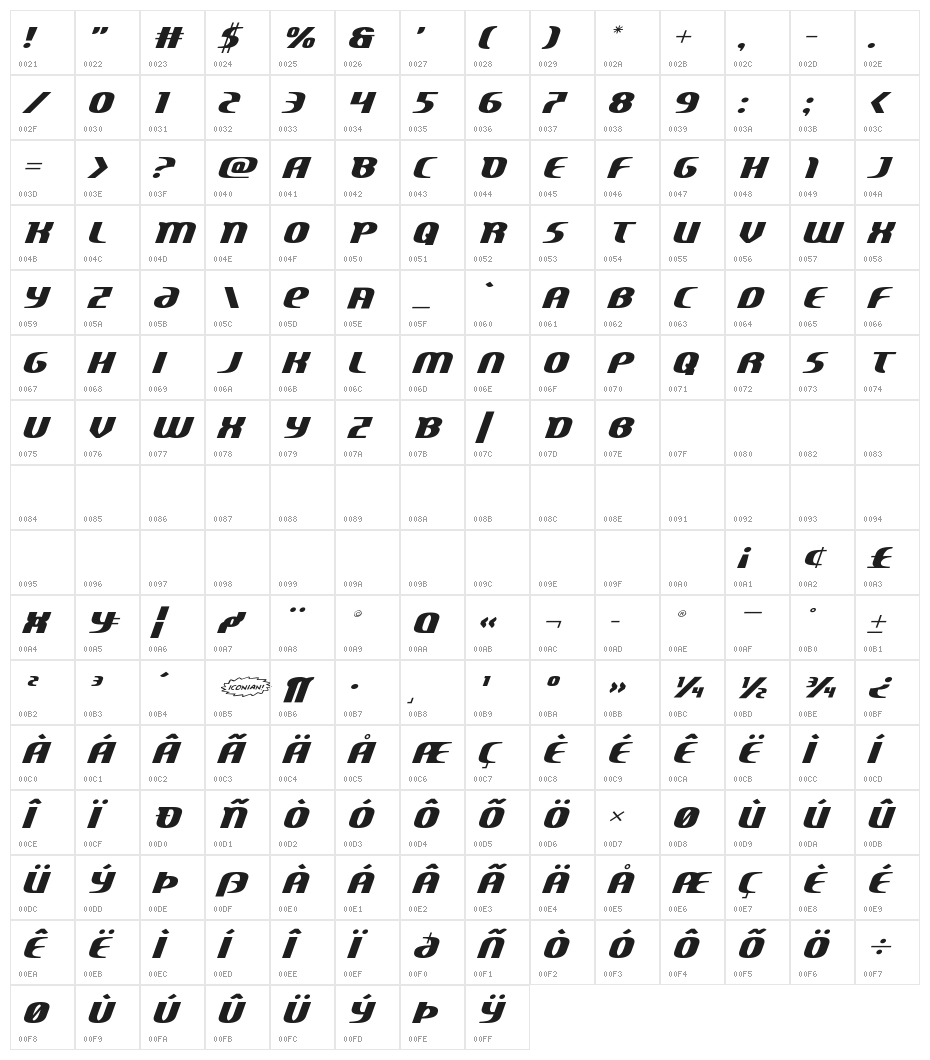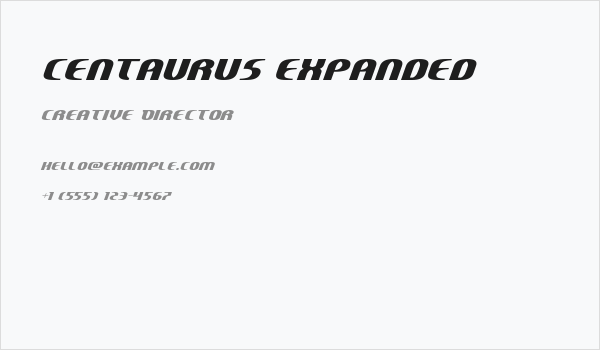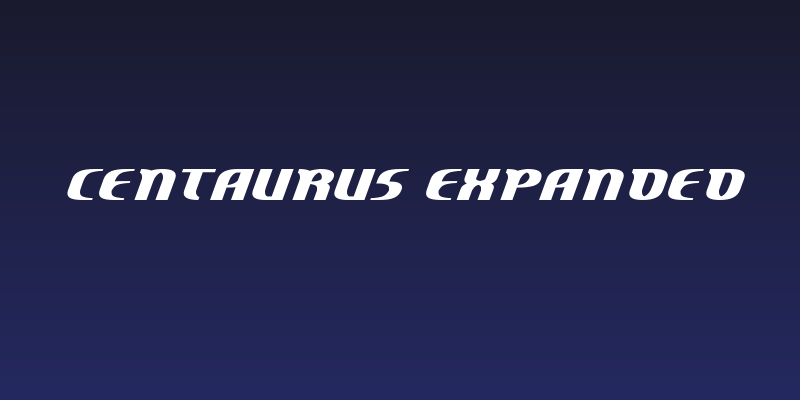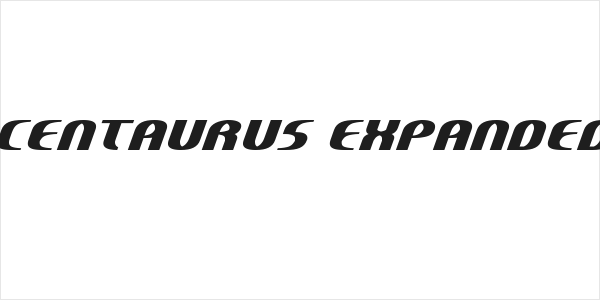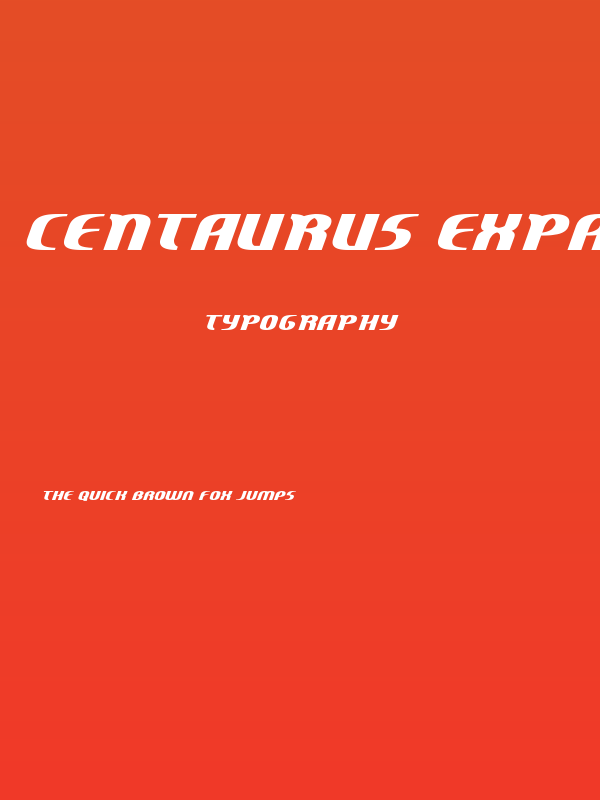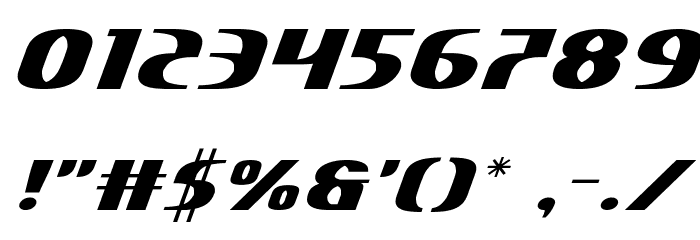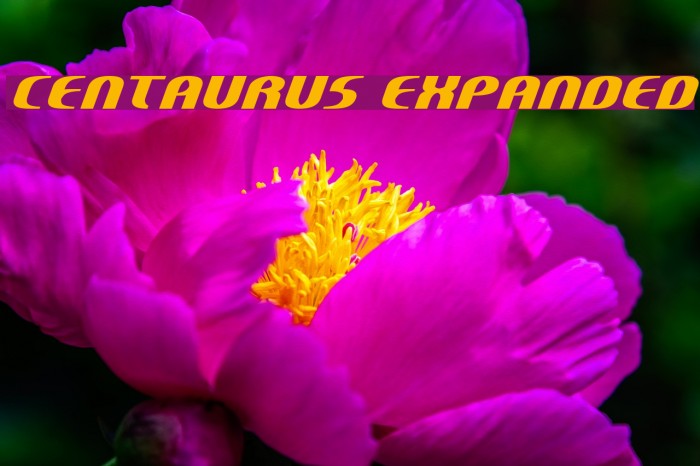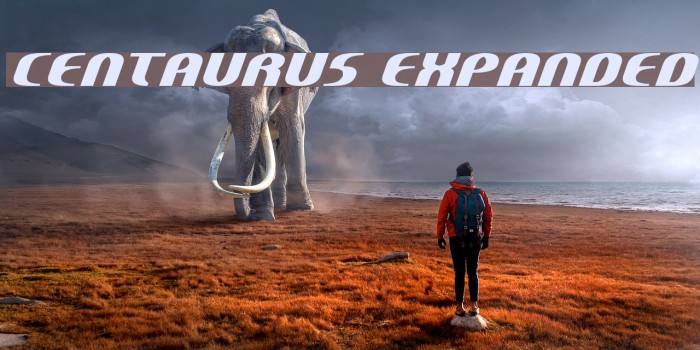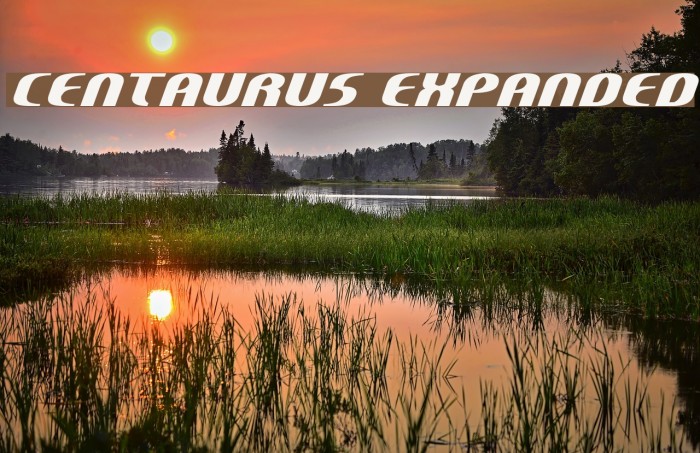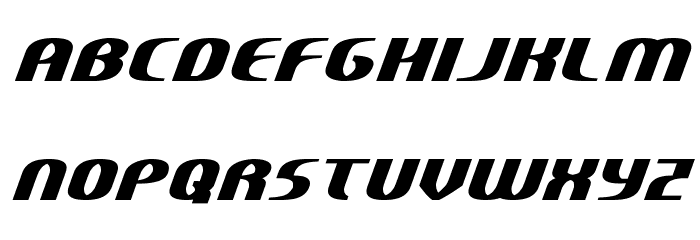
Centaurus Expanded Font
Centaurus Expanded Description
This font is a bold and dynamic typeface that features an expanded width, giving it a strong and impactful presence. The characters are slightly italicized, adding a sense of motion and energy. The strokes are thick and consistent, providing a medium contrast that enhances readability while maintaining a distinctive style. The font's design is modern and sleek, making it suitable for various creative applications. Its unique character shapes and expanded form make it stand out, ideal for making a statement in any design project.
| Proposed Projects | Ideal for headlines, posters, branding, and advertising where a strong and impactful typeface is needed. |